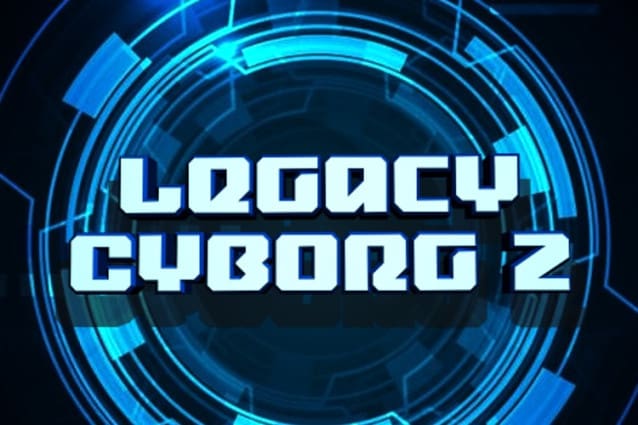
Legacy Cyborg 2 Font, a strong, confident and powerful typeface designed to suit sports logos, club branding, apparel applications, labels and more.
| Classification: | 3D Fonts, Display Fonts, Stencil Fonts, Techno / Futuristic Fonts |